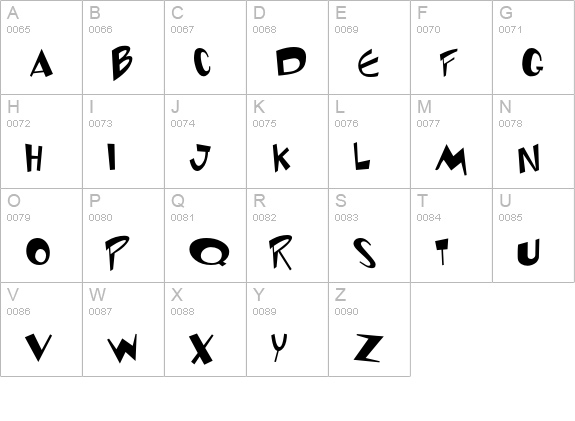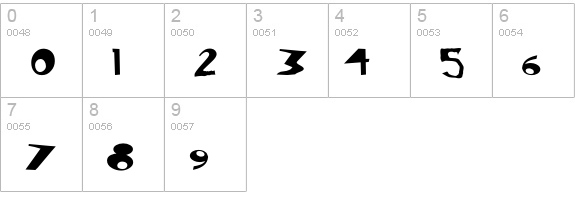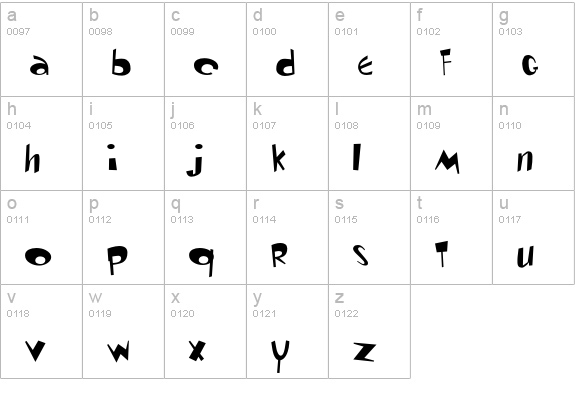
RenandStimpy Font Details
Introducing RenandStimpy Font, a whimsical and playful typeface that will bring a touch of nostalgia to your designs. Inspired by the iconic cartoon characters Ren and Stimpy, this font captures their quirky personalities and adds a delightful twist to any project. RenandStimpy Font is perfect for adding a lighthearted and fun vibe to your designs, whether you're creating a logo, poster, website, or any other creative project. Its unique letterforms are full of personality, with exaggerated curves and playful details that will make your text stand out. One of the best things about RenandStimpy Font is that it is completely free to download. Yes, you read that right - this amazing font is available at no cost! You can easily get your hands on it by visiting FontsMarket.com, a trusted source for high-quality fonts. With RenandStimpy Font, the possibilities are endless. Let your creativity run wild as you experiment with different sizes, colors, and styles to create eye-catching designs that will make a lasting impression. Whether you're a professional designer or just someone who loves to play with typography, this font is a must-have in your collection. Don't miss out on the opportunity to have this fantastic font at your fingertips. Download RenandStimpy Font for free at FontsMarket.com and start adding a touch of whimsy to your designs today.